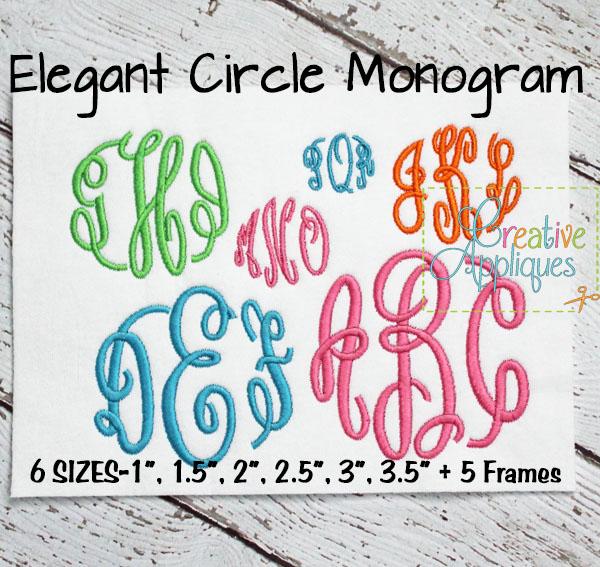
Elegant Circle Monogram Embroidery Font
This circle monogram design is all satin stitching.
1. All left, middle, right letters from A thru Z uppercase.
2. 5 Embroidery frames: satin circle, scallop circle, beaded dot circle, quatrefoil, and pointed square.